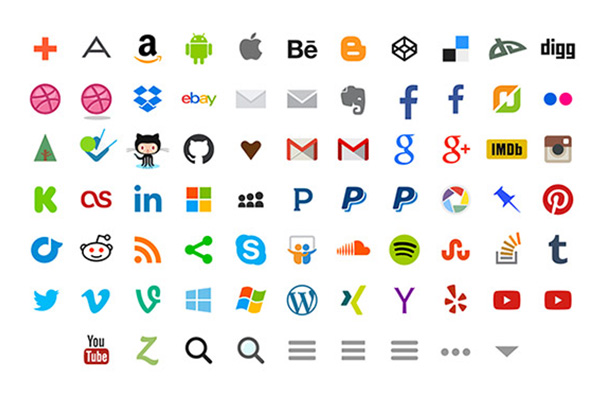
60 Colorful Icon Font Social Stackicons Set
60 Fresh icons for today’s social brands, from App.net to Zerply. It uses overlapping colours to create “multi-color” icons and are a flat design.